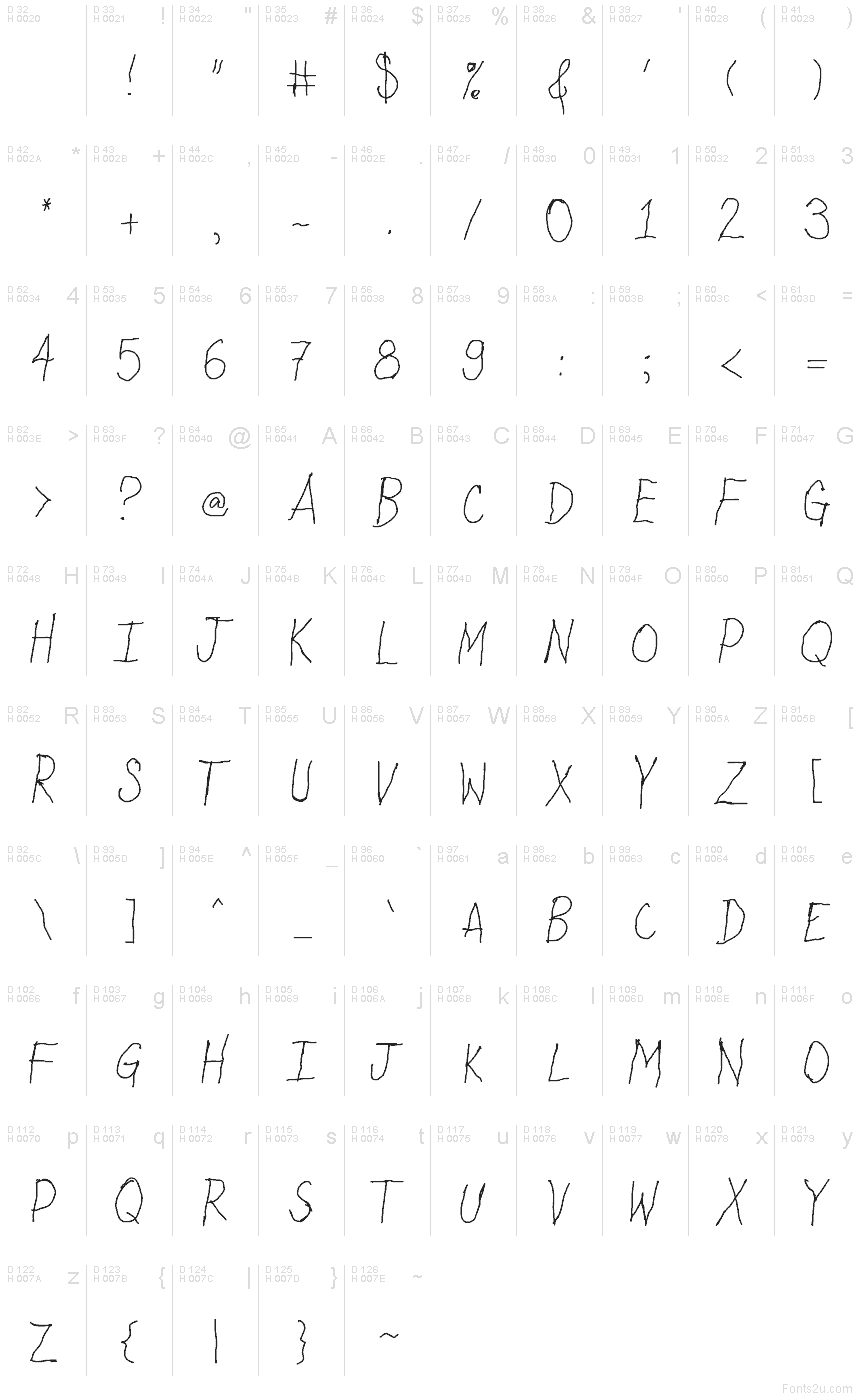
Arkinthor Hands Capitals
Arkinthor Hands Capitals font by The Branded Quotes captures a suspenseful, jagged, and erratic handwritten style with raw edges and a rugged tone. This light, condensed free handwritten font is chaotic yet subtly attractive, bringing emotional energy with its carefree aesthetic.